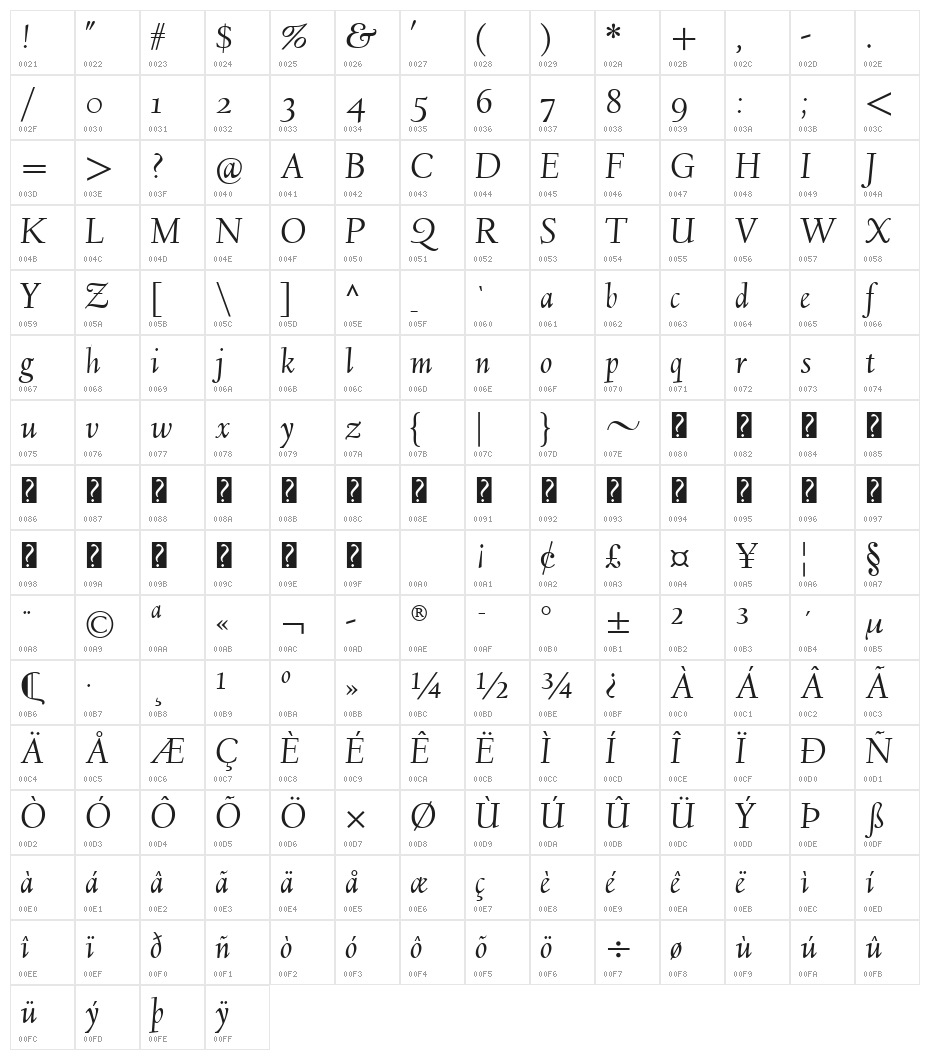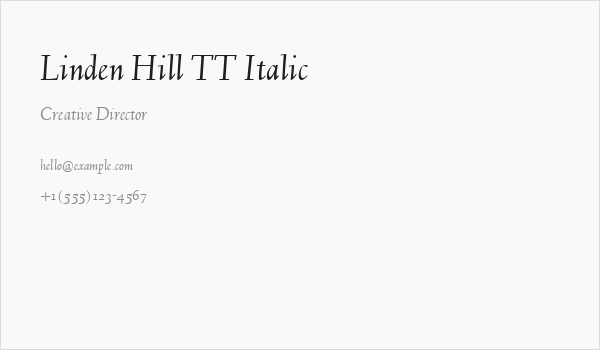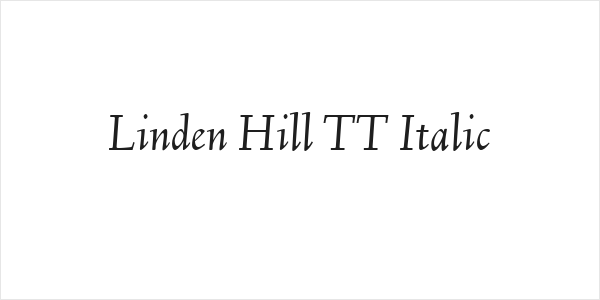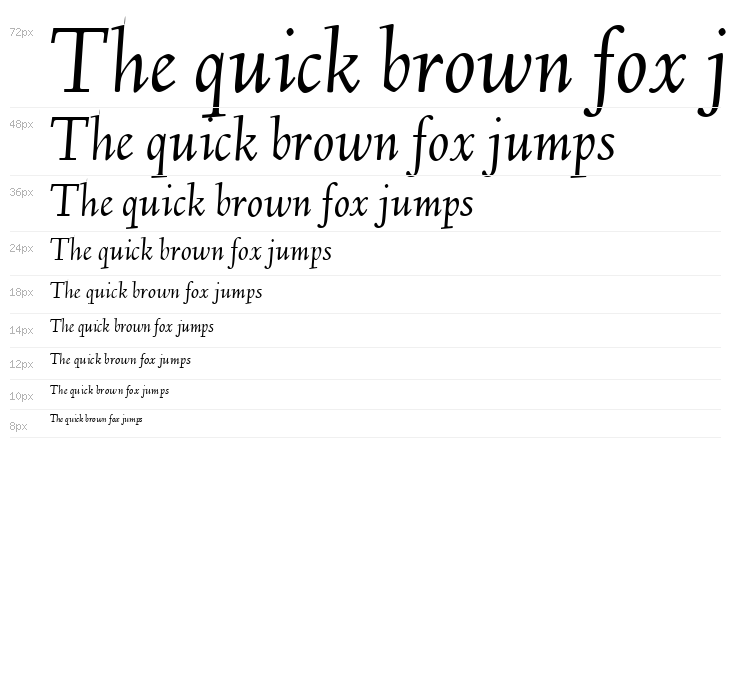
Linden Hill TT Italic Font
Linden Hill TT Italic Description
This elegant serif font features a classic italic style with a refined and sophisticated appearance. The letters have a slight slant, giving them a dynamic and graceful flow. The uppercase characters are well-proportioned, with a subtle contrast between thick and thin strokes, enhancing readability while maintaining a stylish look. The lowercase letters are beautifully crafted, with smooth curves and delicate serifs that add a touch of elegance. The numerals are clear and distinct, making them suitable for various applications. The special characters are thoughtfully designed, complementing the overall aesthetic of the font.
| Use Case | Editorial design, Book covers, Formal invitations, Branding |
| Proposed Projects | Ideal for use in editorial design, book covers, formal invitations, and branding projects that require a touch of elegance. |